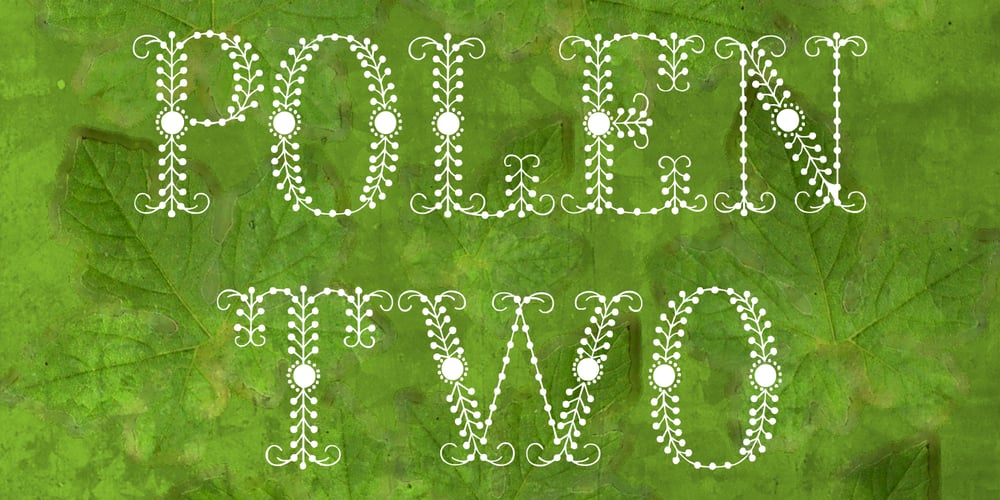
Polen Two Font Family was designed by Iza W and published by Intellecta Design. Polen Two contains 1 styles and family package options. Polen is a soft, well elaborated and unusual font design. Works great when used for display reasons only. Contains only uppercase alphabet designs.